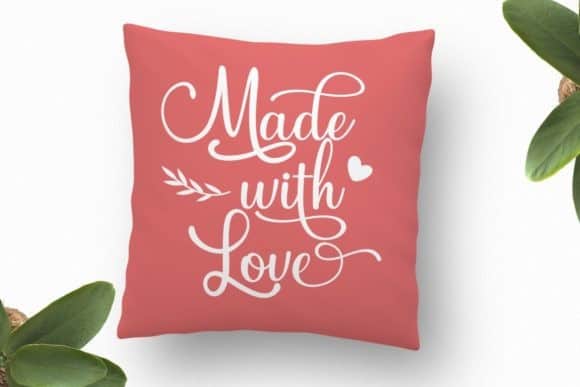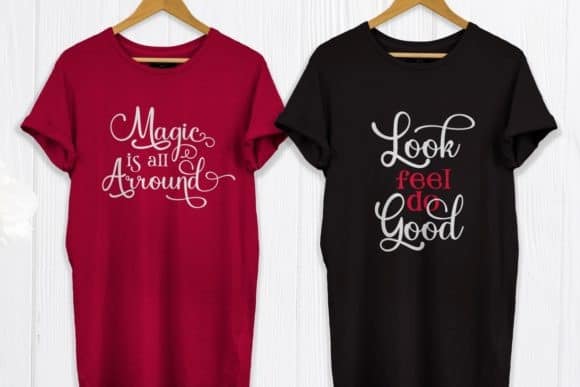
Feeling Blessed Calligraphy Font
Feeling Blessed Calligraphy Font is a modern calligraphy script that feels fresh and unique. This font has Open Type features such as alternate letters, and ligatures. It features an incredibly classic style, while still keeping a friendly feel. This typeface is the perfect font for making original and outstanding designs. It is the best for branding, printing, wedding and quotes.